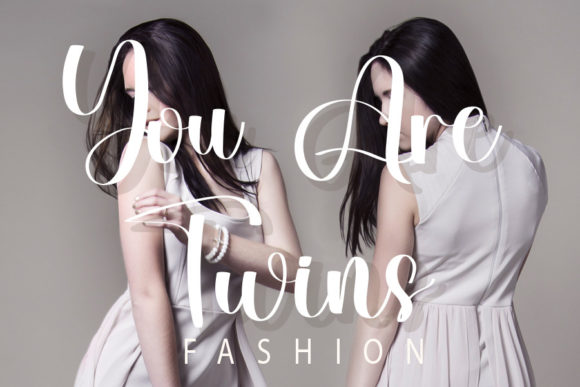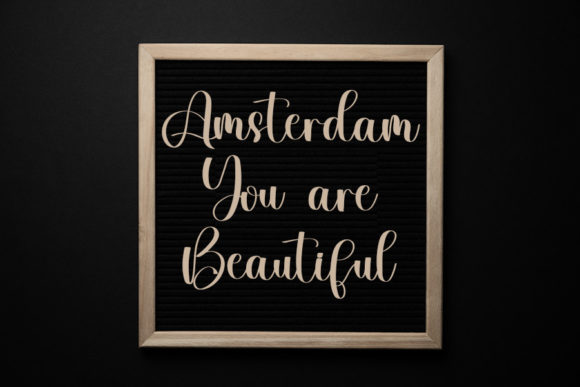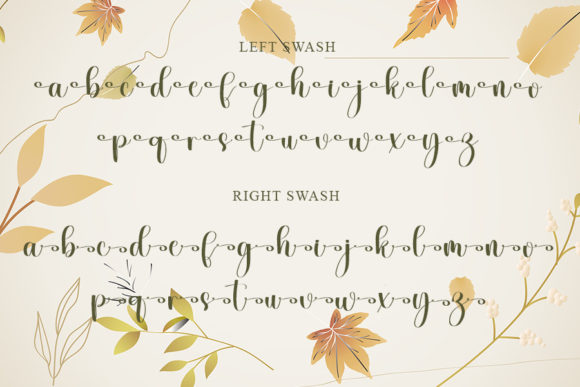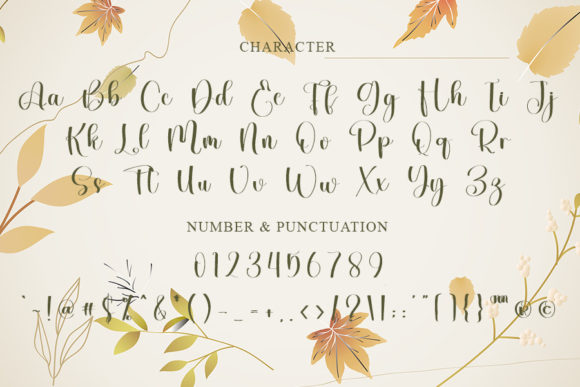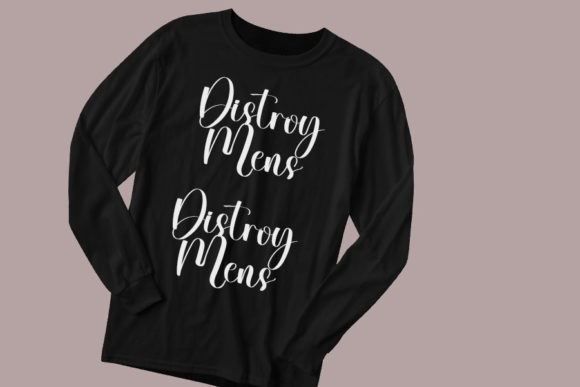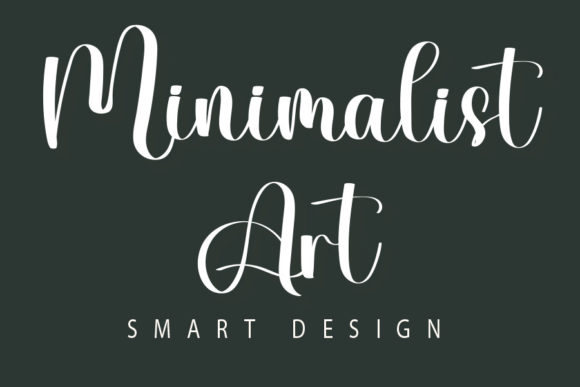
The Elusive Perfect Font: My Encounter with Ballita
As a designer, I’ve had my fair share of late nights scrolling through font libraries, searching for that one perfect typeface. You know, the one that captures the essence of your project and elevates it to the next level. I recall working on a wedding invitation design, determined to create something elegant and modern. That’s when I stumbled upon Ballita, a beautiful and refined script font that instantly caught my attention.
First Impressions: A Love Affair with Ballita
Ballita is a stunning script font that exudes class, elegance, and a touch of modern sophistication. Its versatility makes it perfect for a wide range of design projects, from logos and branding to invitations, stationery, wedding designs, and social media posts. What I love about Ballita is its PUA (Private Use Area) encoding, which allows easy access to an array of amazing glyphs and ligatures.
What I Love About Ballita ✨
- ✅ Elegant and modern design that’s perfect for high-end projects
- ✅ PUA encoded for easy access to glyphs and ligatures
- ✅ Highly versatile and suitable for various design applications
- ✅ Great for creating beautiful wedding designs, invitations, and stationery
- ⚠️ Some users might find the font a bit too refined or delicate for certain projects
- ⚠️ Limited availability of bold or heavy weights, which might not be suitable for all designs
The Story Behind Ballita: Designer Inspiration
While the true story behind Ballita’s creation remains a mystery, it’s easy to imagine that its designer was inspired by the world of high-end fashion and luxury. Perhaps they wanted to create a font that would evoke the feeling of sophistication and elegance, perfect for designs that require a touch of refinement.
Q: What is PUA encoding, and how does it benefit font users?
A: PUA (Private Use Area) encoding allows font users to access a range of glyphs, ligatures, and stylistic alternates that are not available in standard fonts. This means you can create more complex and beautiful designs with ease.
Q: Is Ballita a difficult font to read?
A: Ballita is a script font, and as such, it may be more challenging to read in large blocks of text. However, it’s perfect for headings, titles, and short paragraphs.